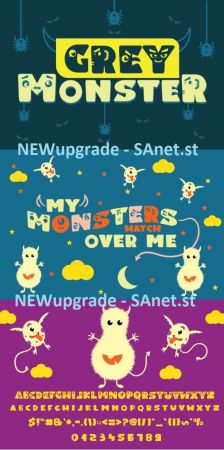
Grey Monster is a scary but fun display font.
All capitals feature scary faces, making it the perfect font for Halloween, scary camping trips, kids parties and more.